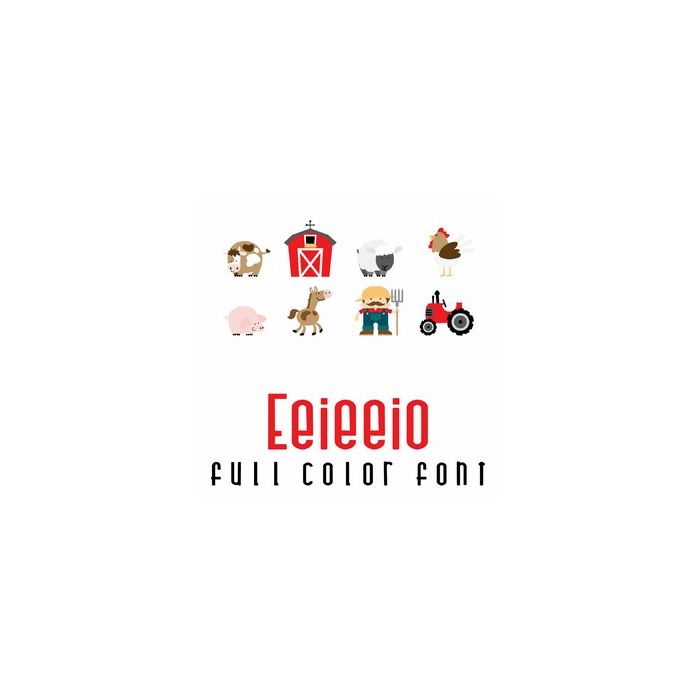
This adorable full-color doodlebat font features 26 farm animals. Perfect for cards, crafts, gifts, decor, scrapbook pages, planner stickers, and more!